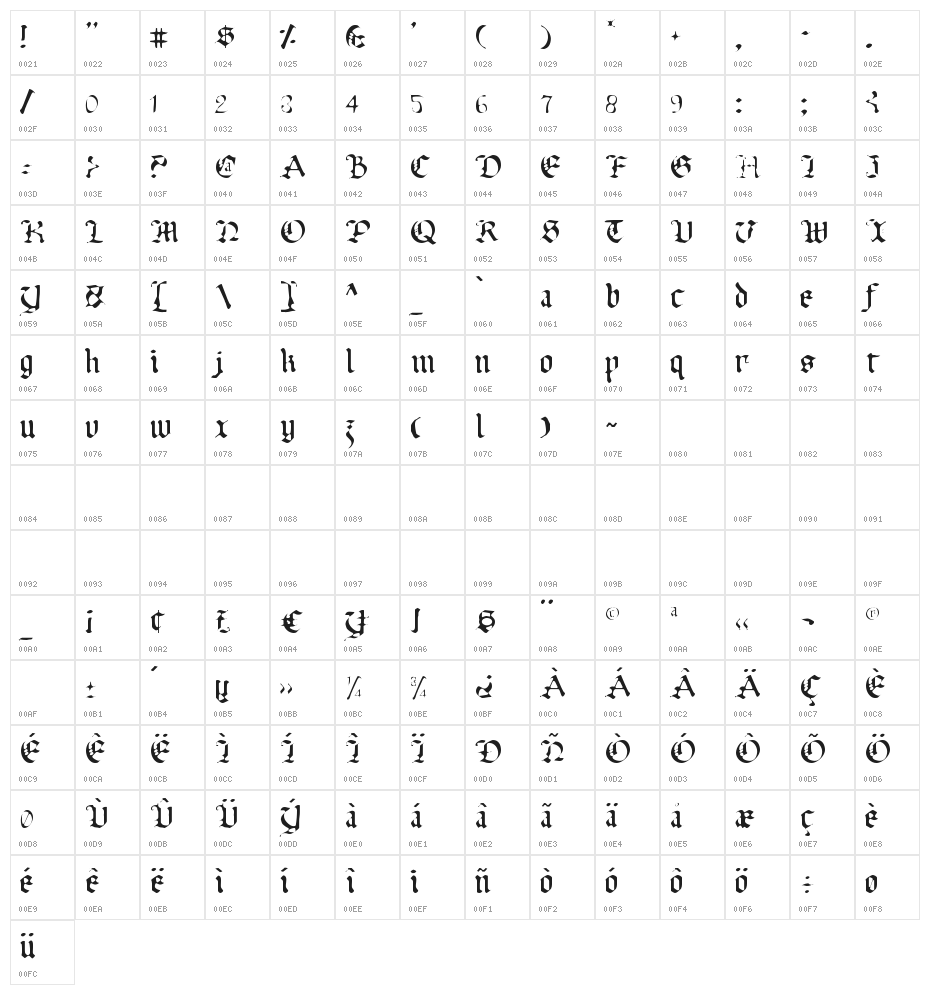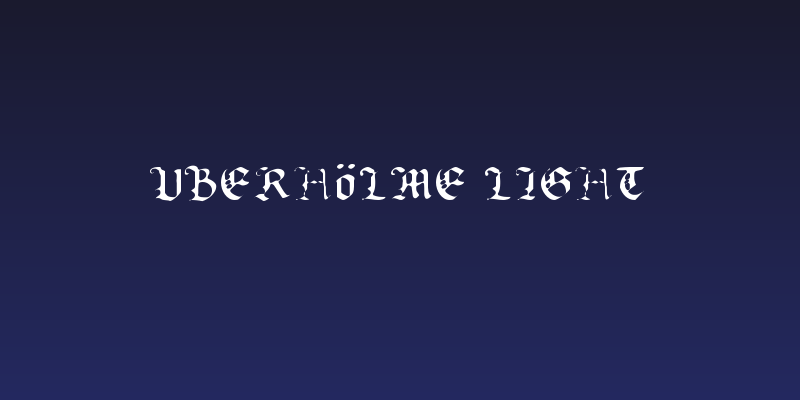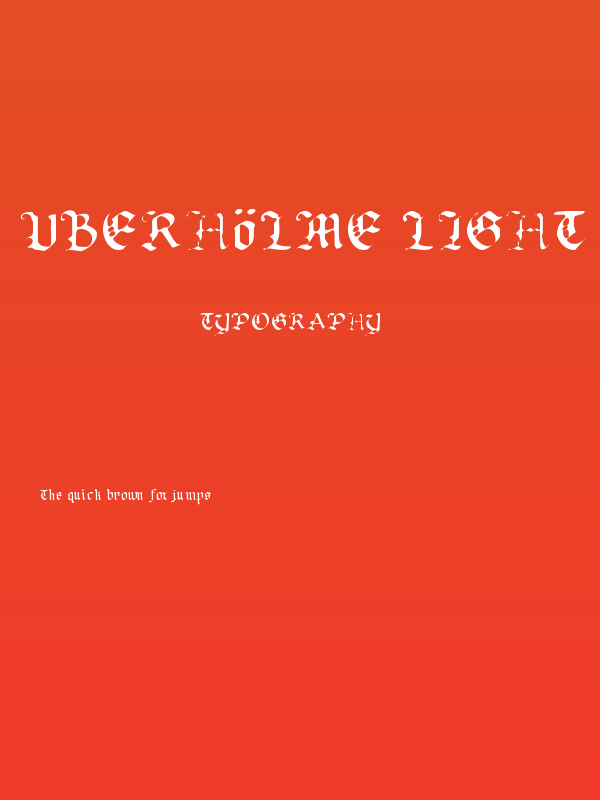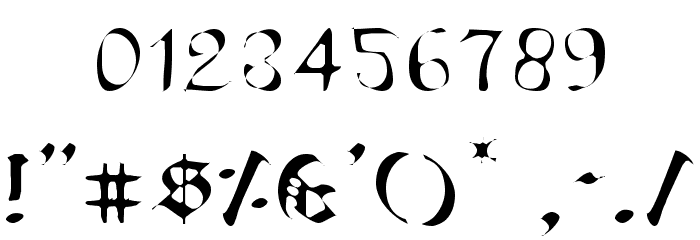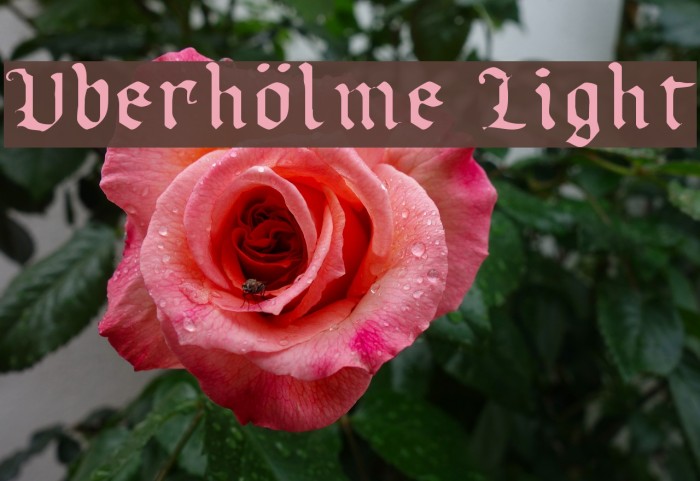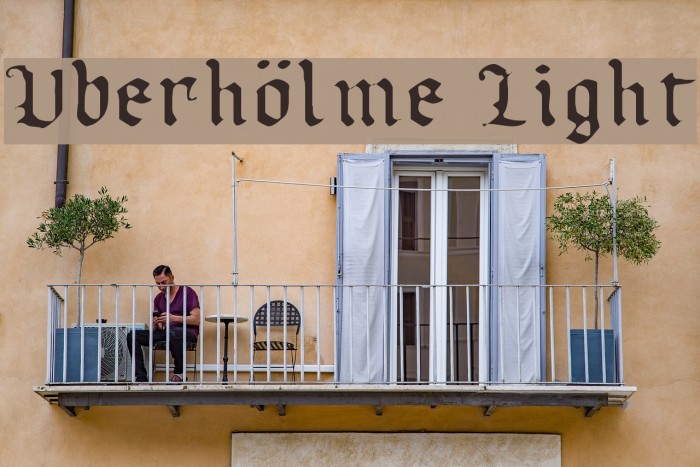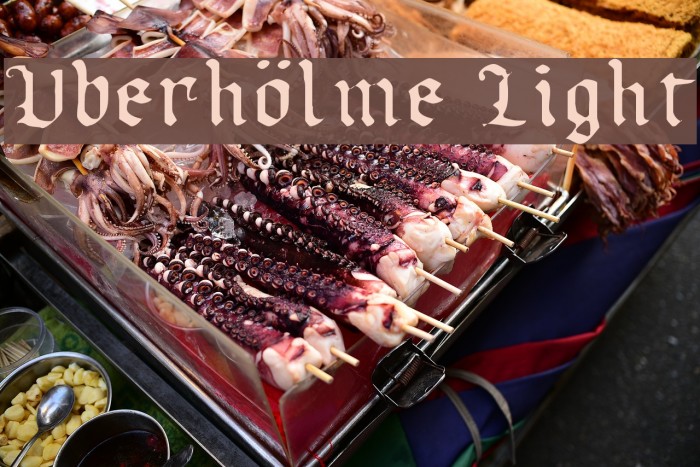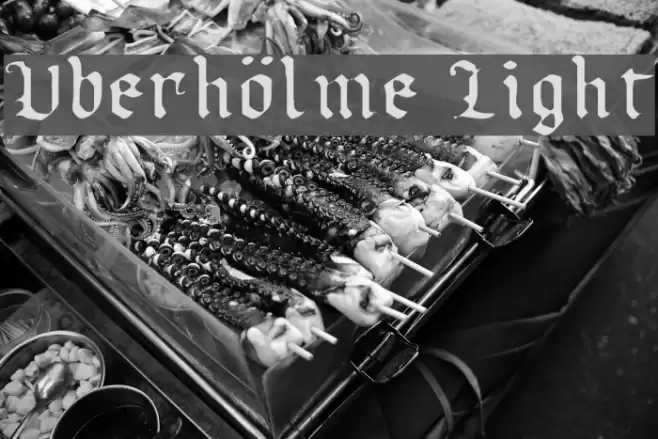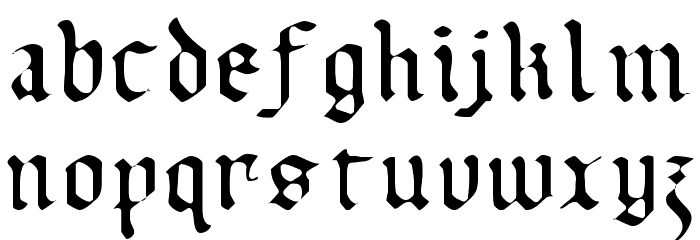
Uberhölme Light Font
✎ Gothic
Uberhölme Light Description
This font exhibits a classic blackletter style with intricate, sharp edges and a gothic aesthetic. The uppercase letters are bold and ornate, featuring pointed serifs and dramatic strokes that convey a sense of historical elegance. The lowercase characters maintain the same decorative flair, with unique curves and angles that enhance the font's medieval appearance. Numbers and special characters are equally stylized, ensuring consistency across all elements. The overall design is reminiscent of traditional calligraphy, making it suitable for projects that require a touch of antiquity and sophistication.
| Overall Style | Vintage |
| Use Case | Logos, Headlines, Decorative text |
| Proposed Projects | Ideal for historical documents, wedding invitations, book covers, and branding that requires a vintage or medieval touch. |